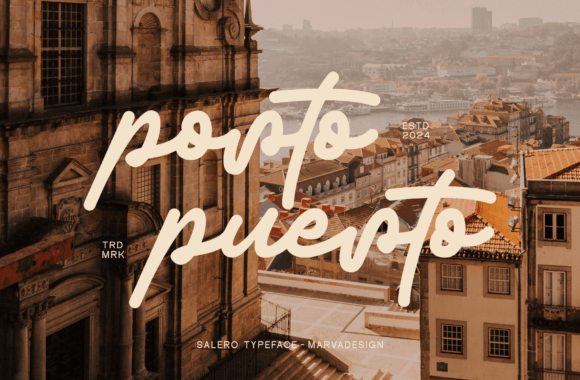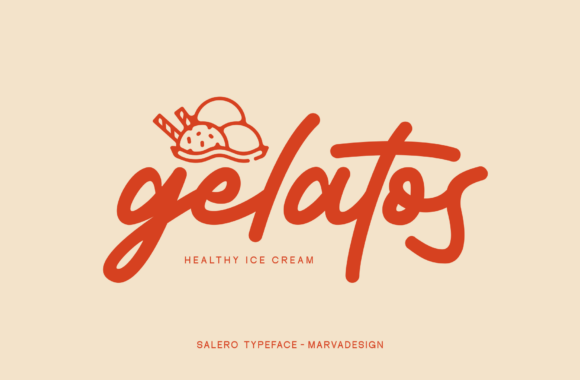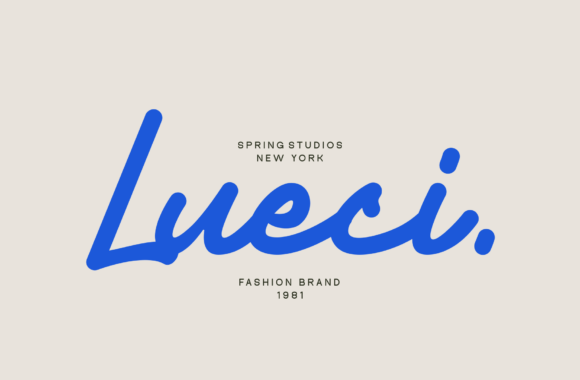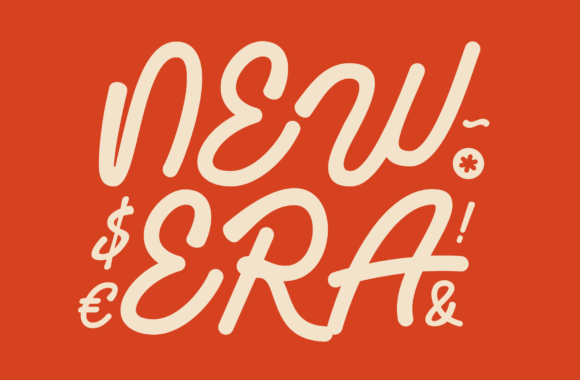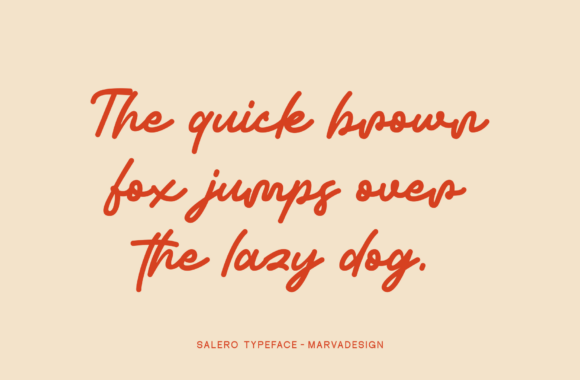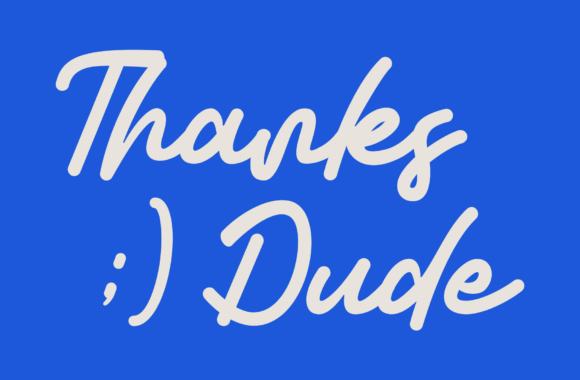
Introduction to Salero Font
As a designer, there’s nothing quite like the thrill of discovering a new font that sparks creativity and takes your project to the next level. For me, that moment came when I stumbled upon the Salero Font – a script and handwritten font that exudes a distinctive character in every glyph. Its unique design combines the fluidity of handwritten strokes with fine details, creating a sophisticated and artistic appeal that’s hard to resist.
The Salero Font is more than just a design resource – it’s a high-quality tool that can elevate your creative project to new heights. With its transparent background and free download option, you can easily integrate it into your design workflow and experiment with different styles and layouts. Whether you’re working on a branding project, a blog, or a social media campaign, the Salero Font is a valuable addition to your design arsenal.
Key Features of Salero Font
- Designed with a modern and sleek aesthetic, making it perfect for use in logos, branding, and digital products.
- Easy to use and customize, with a clear and legible design that works well in a variety of font sizes and styles.
Honest Review: Salero Font
As a designer, I’m always on the lookout for high-quality design resources to enhance my creative projects. Recently, I stumbled upon the Salero Font, and I’m excited to share my thoughts on this versatile font.
- High-quality design: The Salero Font boasts crisp lines and clean typography, making it perfect for various design projects.
- Limited character set: The Salero Font has a relatively small character set, which might be a limitation for designers who require a wide range of characters.
- No bold or italic styles: While the font looks great in its standard style, it would be beneficial to have bold or italic versions for added versatility.
Overall, the Salero Font is a solid addition to any designer’s toolkit. Its high-quality design and free download make it an excellent resource for creative projects. However, its limited character set and lack of bold or italic styles might be a drawback for some designers.
Salero Font
The Salero Font is a high-quality design resource that can elevate any creative project. It features a transparent background, making it easy to customize and integrate into various design platforms.
The Salero Font is perfect for:
- Graphic design and illustrations
Alternatives to Salero Font